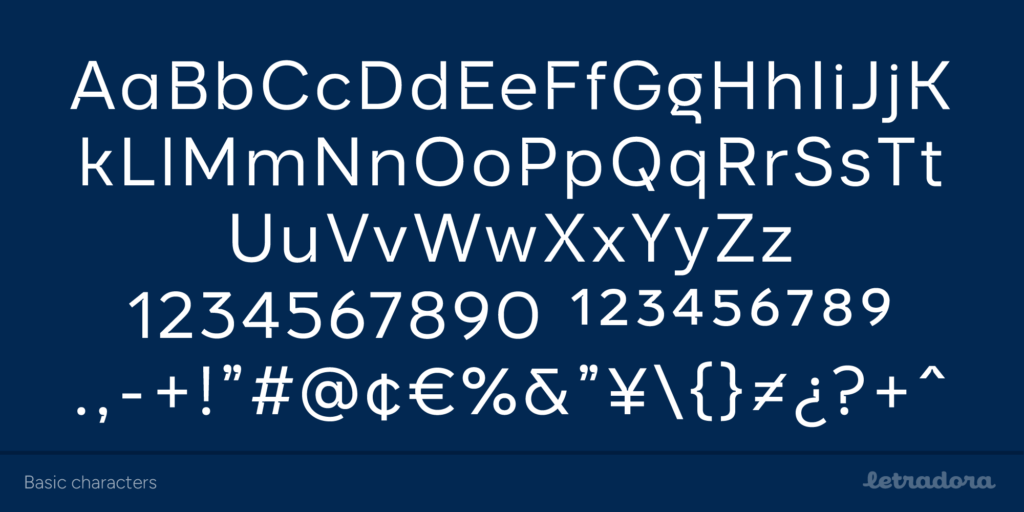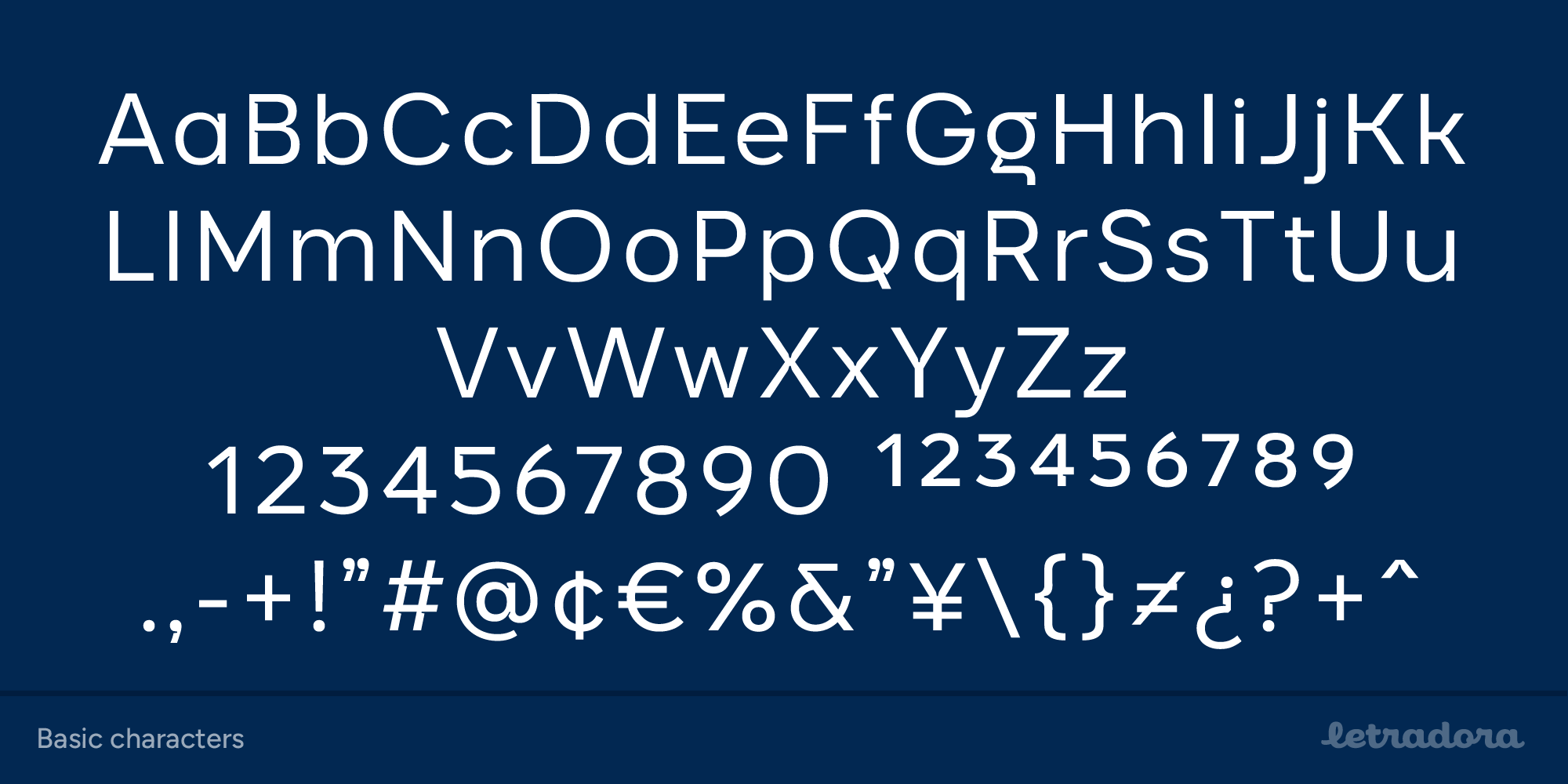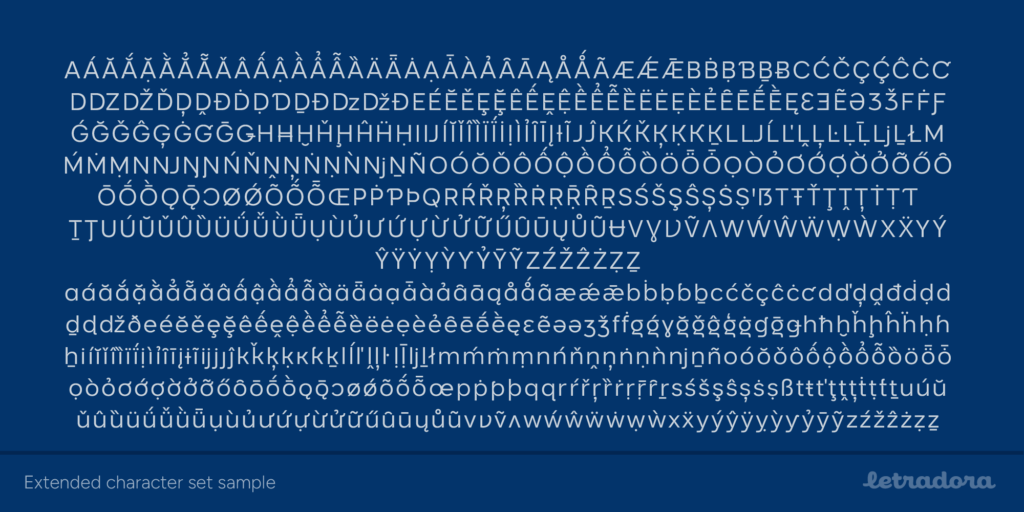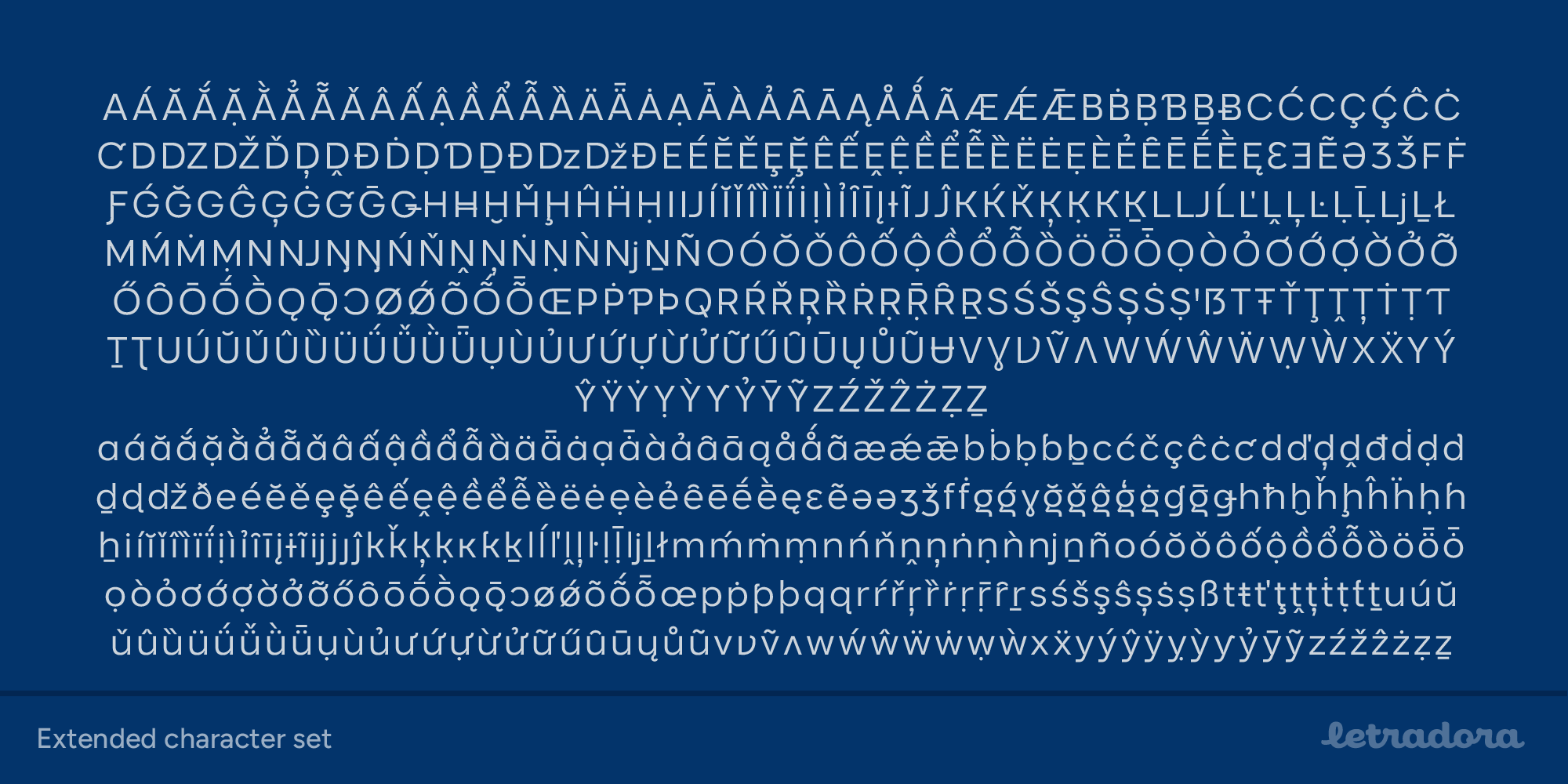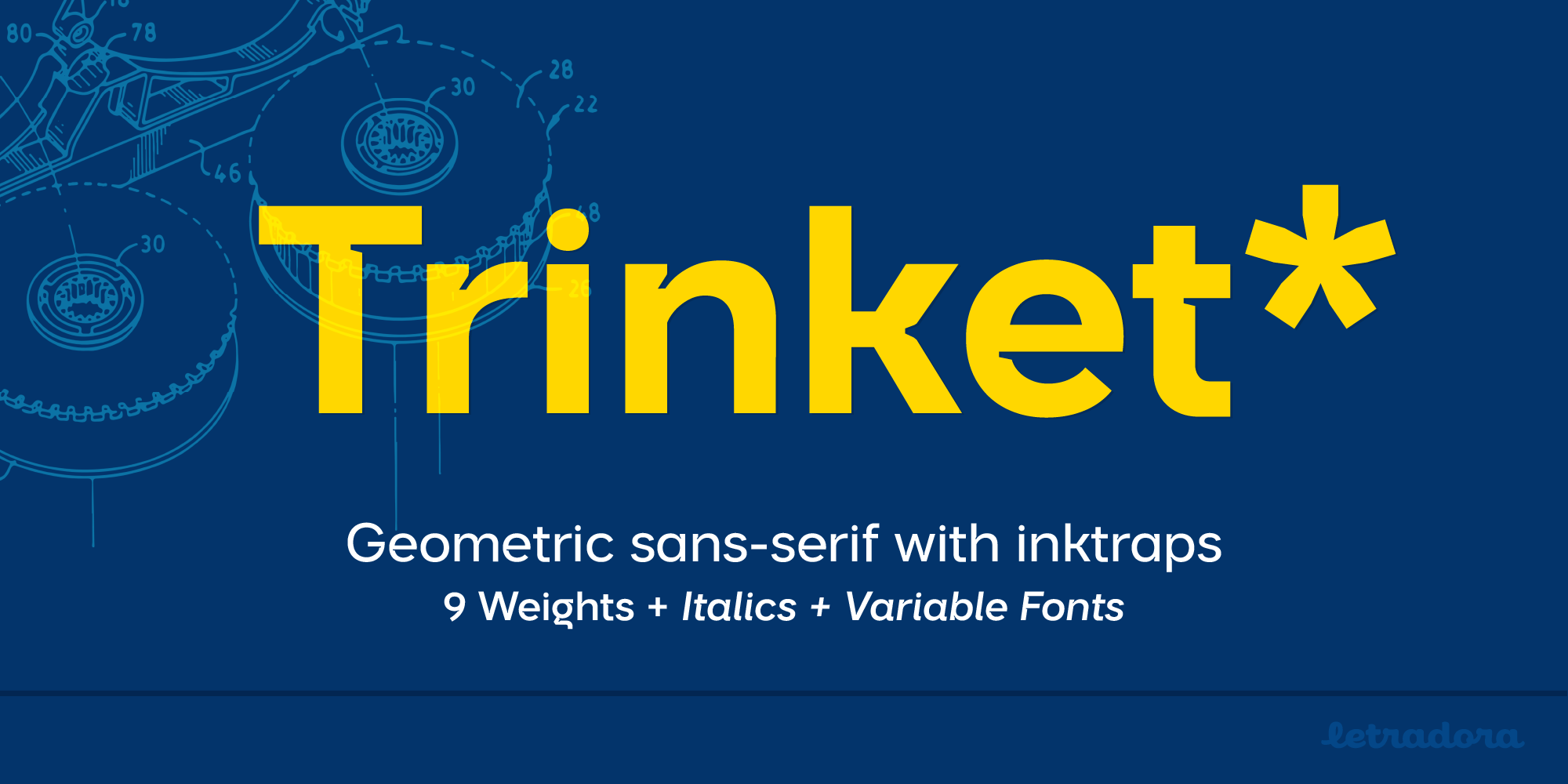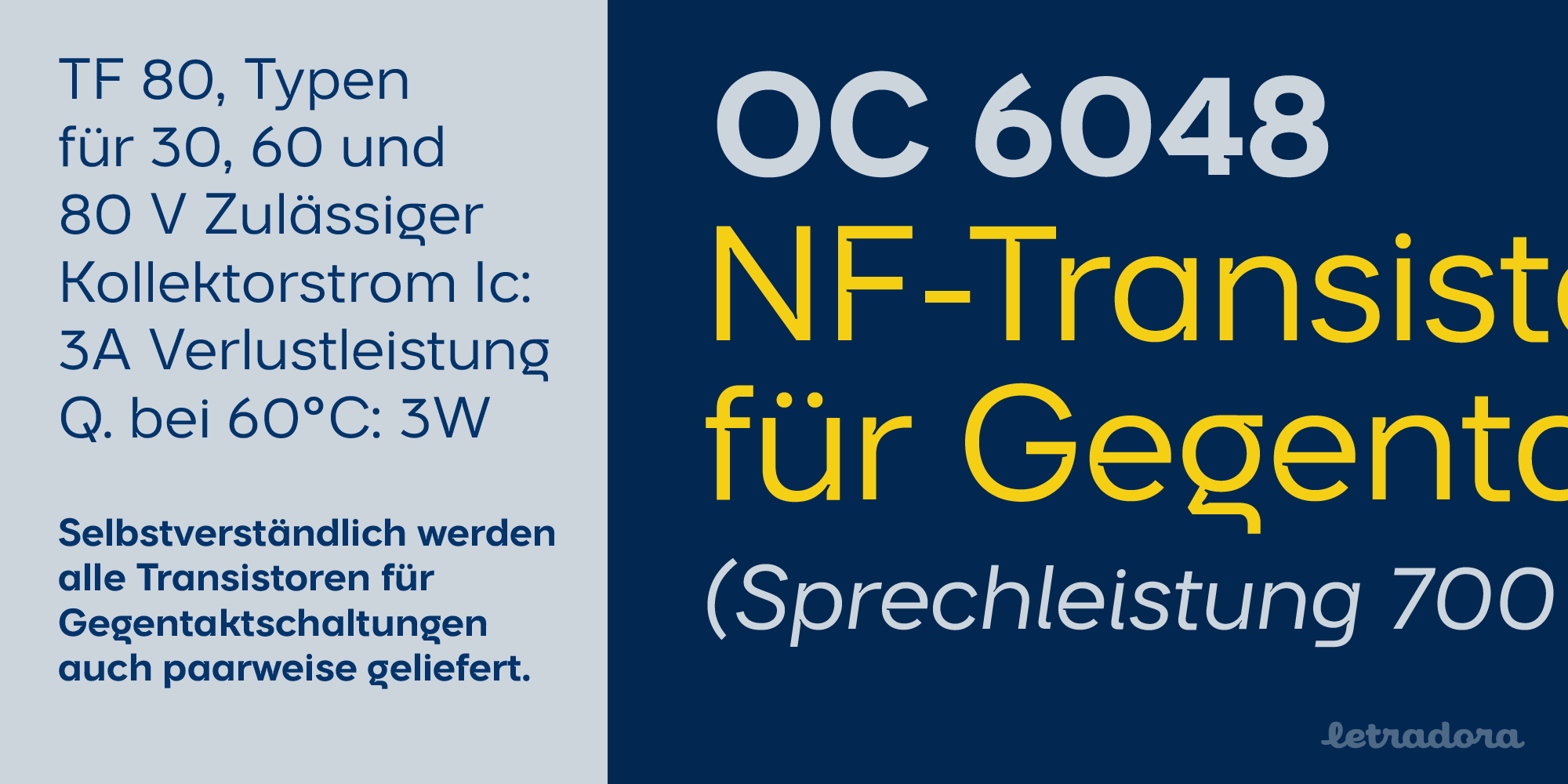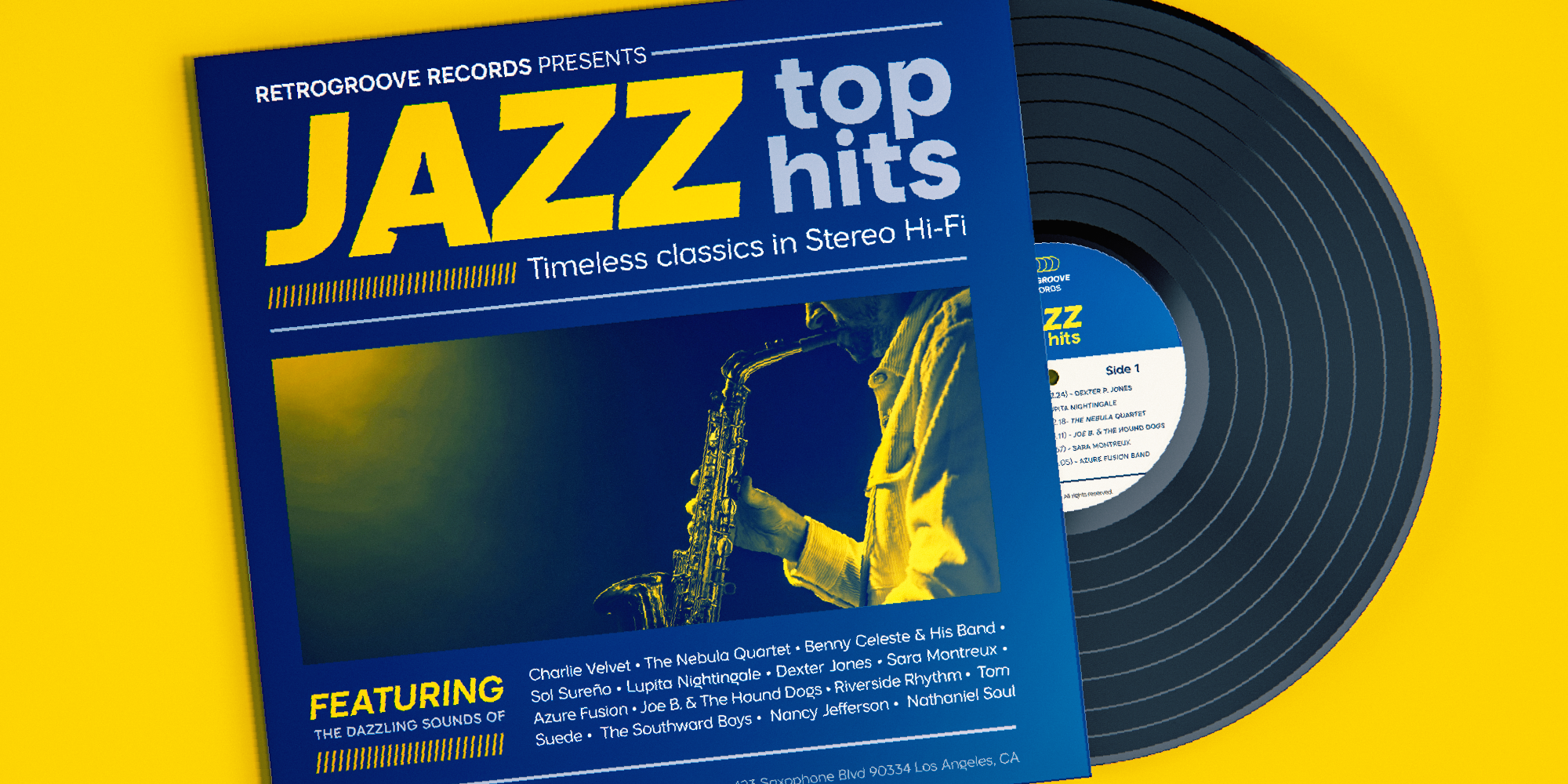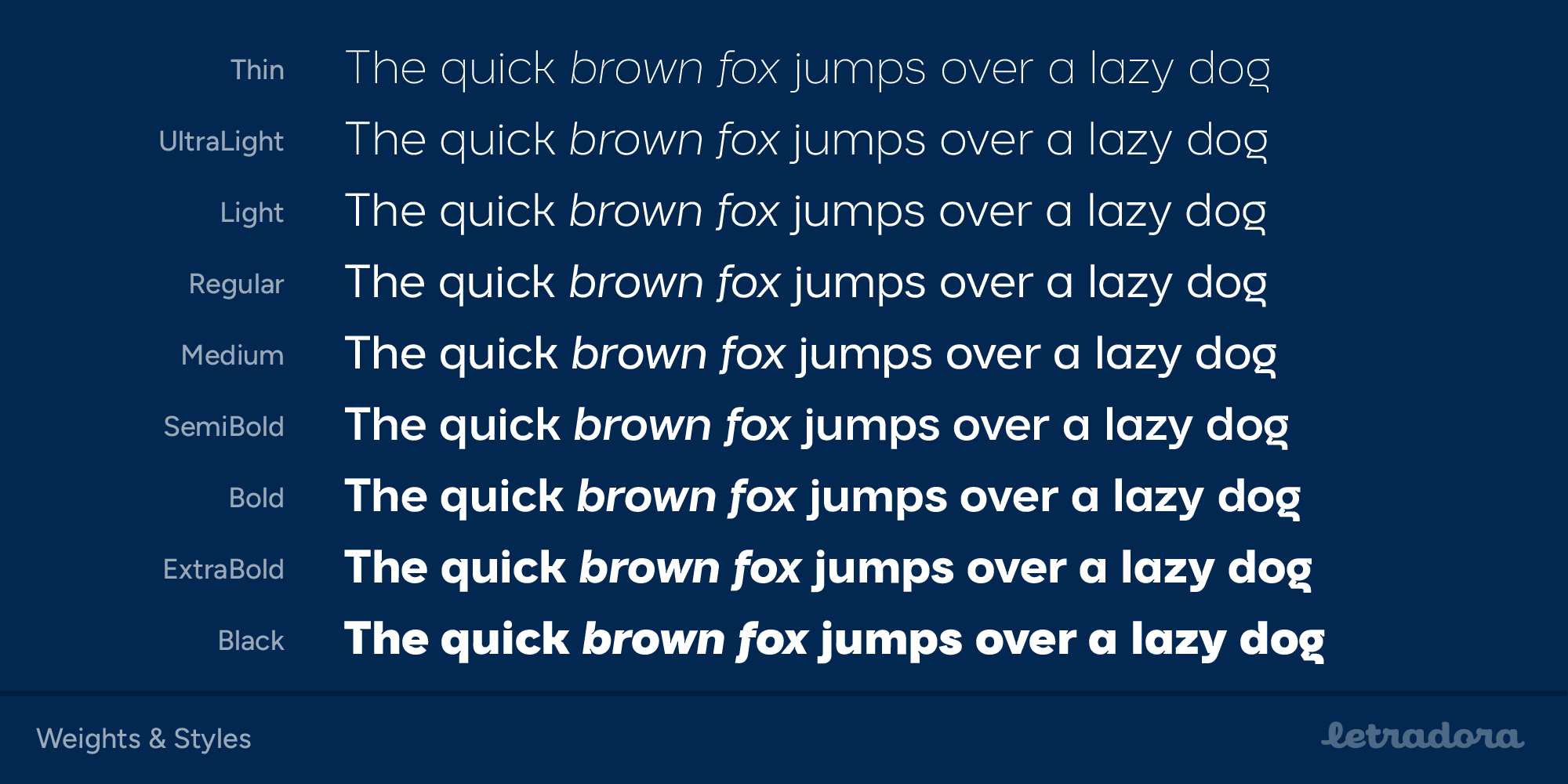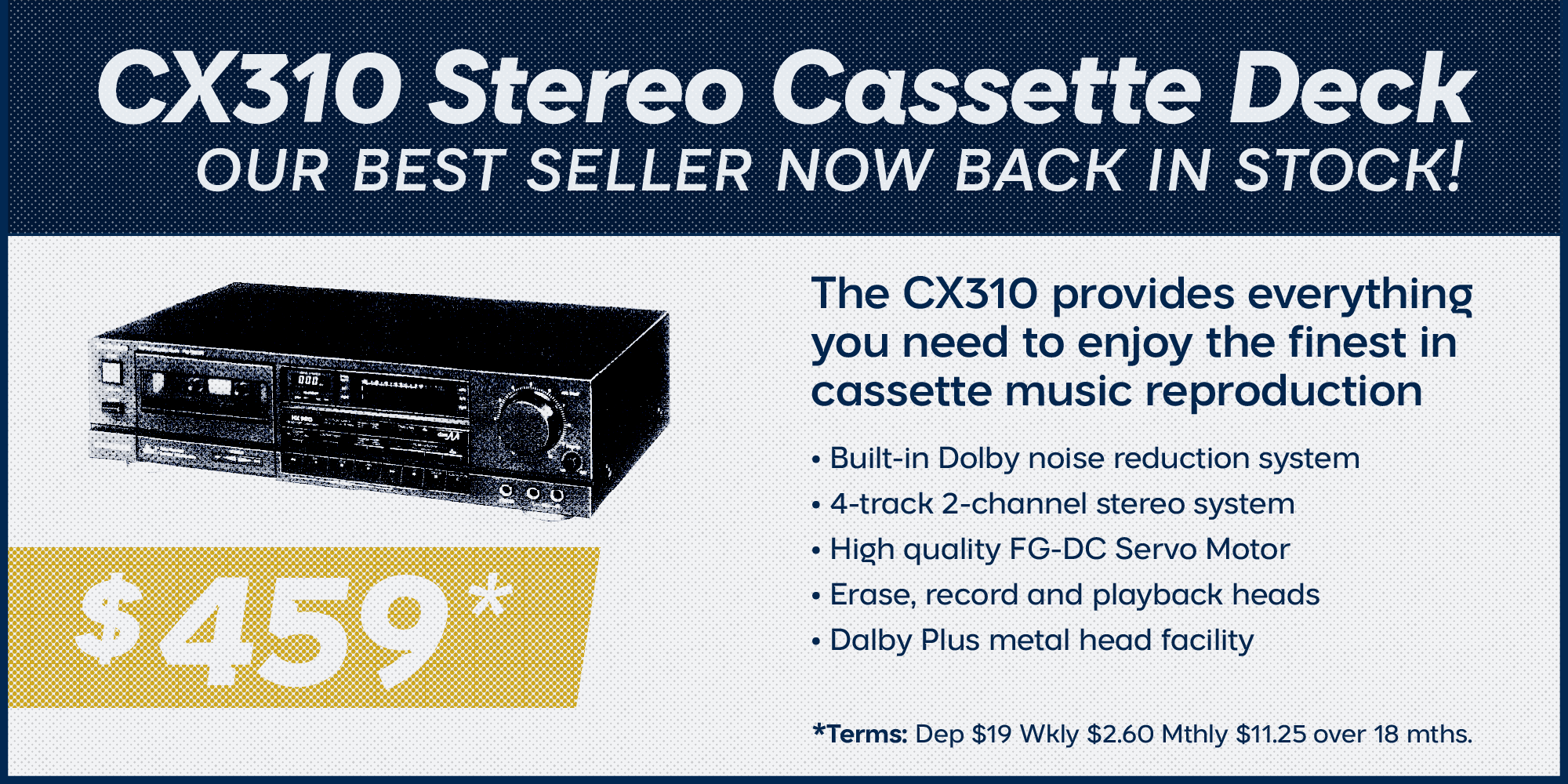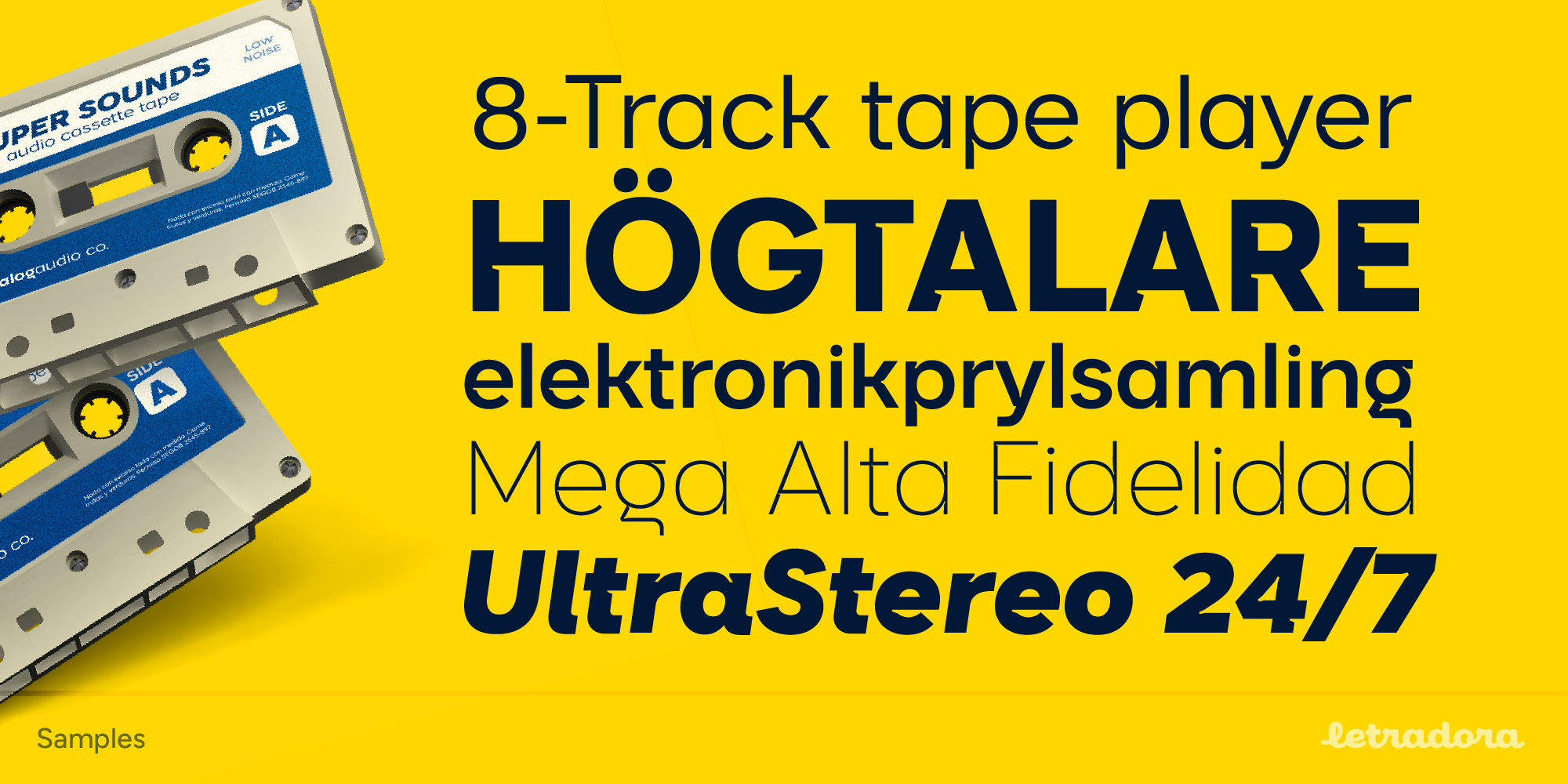
Trinket
Modern geometric sans-serif font with inktraps. 9 weights with italics, variable fonts included
Trinket is a contemporary geometric sans with a crisp profile and subtle inktraps that bring character without sacrificing clarity. Its nine weights and true italics form a flexible, well-balanced system designed for modern branding, editorial use, and digital interfaces.
With support for 130+ languages and a full set of typographic features—small caps, alternates, tabular figures—Trinket adapts easily from expressive headlines to reliable, readable text.
Trinket is a workhorse with personality, great for designing logos, crafting headlines, or styling body text.